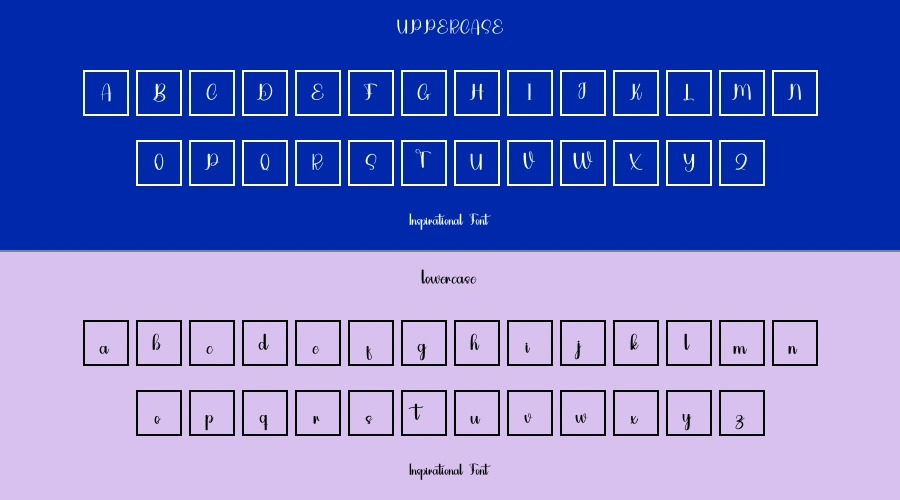
About Inspirational Font
Inspirational Font stands out for its distinctive combination of harmonic curves and visual comfort. Ideal for web design, it provides the authenticity and visual authority that professional projects demand. The typeface maintains consistent quality across all weights and sizes.
Key features include refined unique personality and practical stylistic alternates, enhancing typographic expression. In brand logos applications, Inspirational Font demonstrates exceptional emotional response. The aperture size and brand potential contribute to its distinctive character and professional appeal.